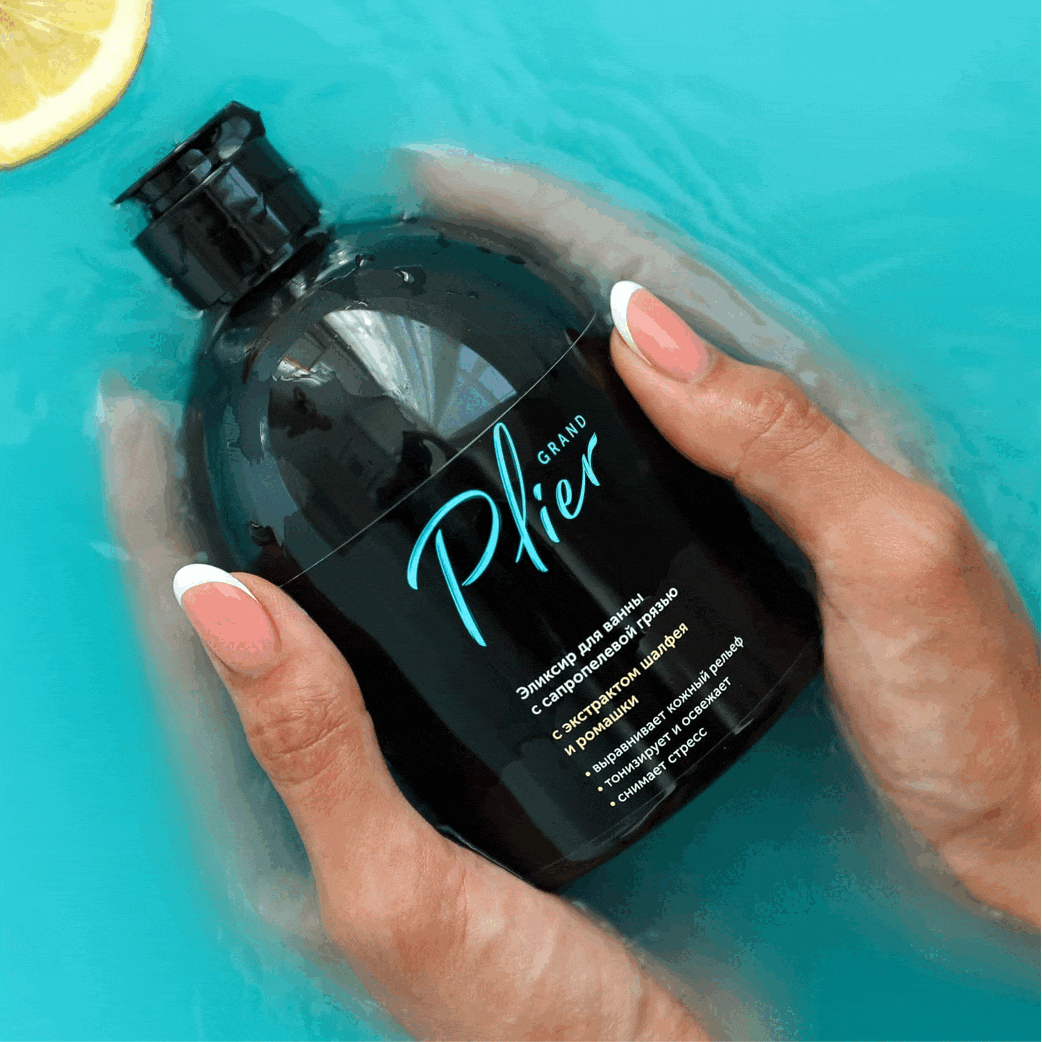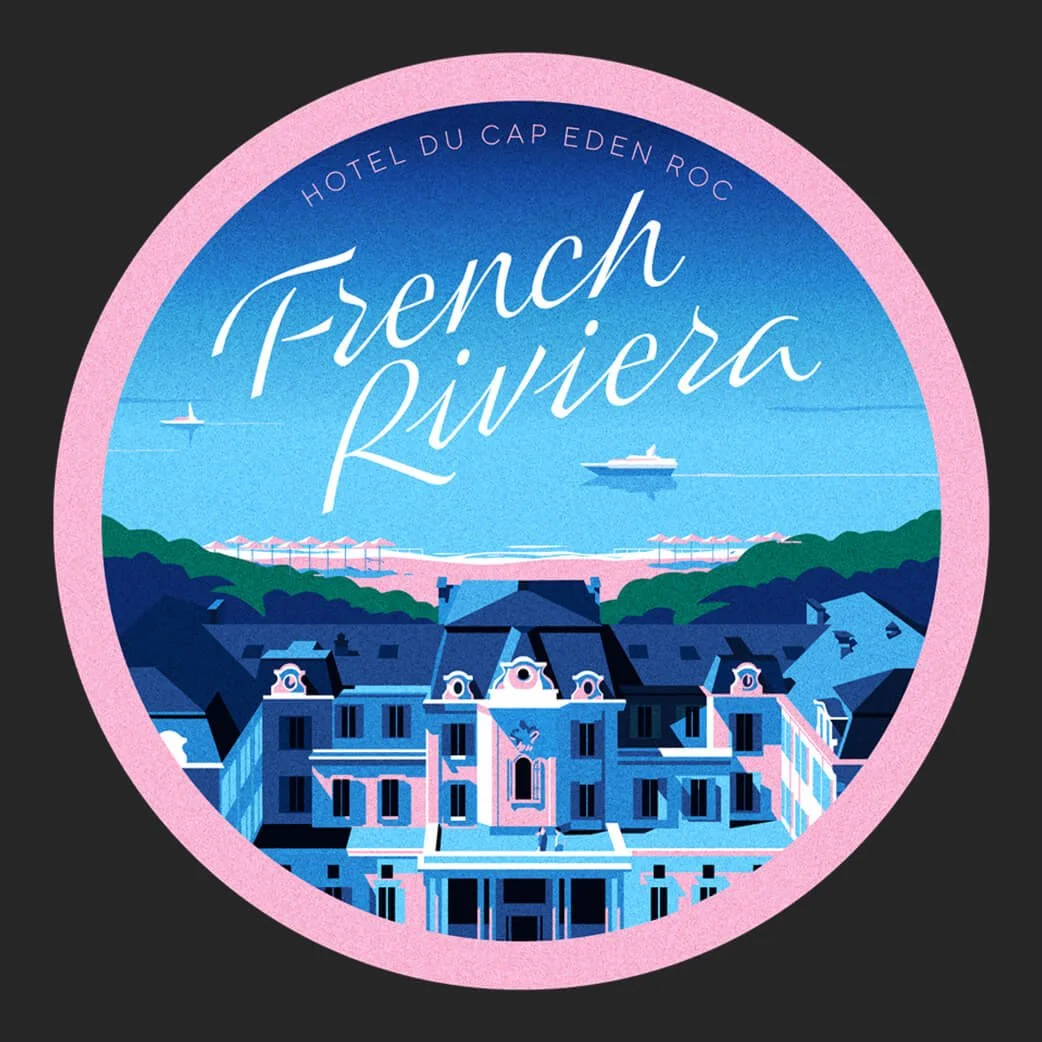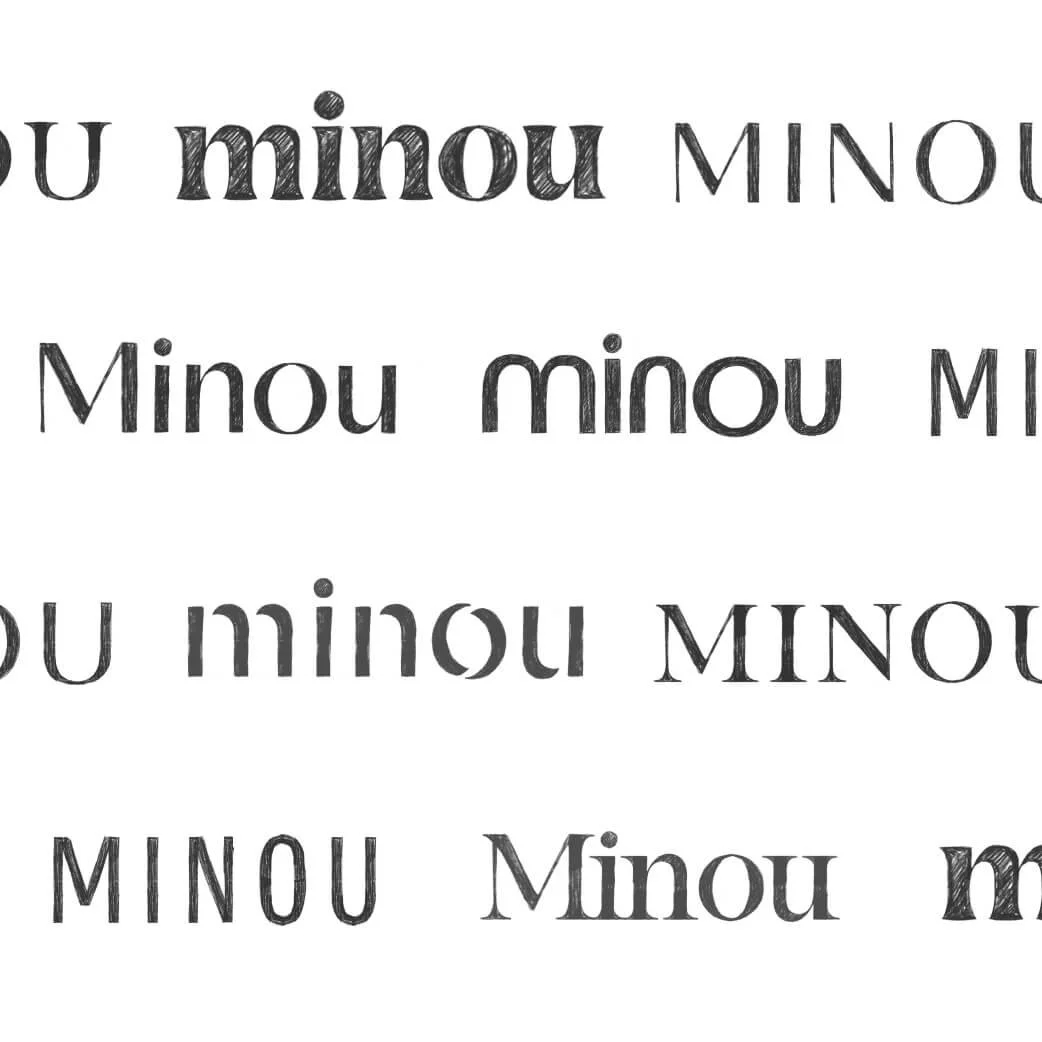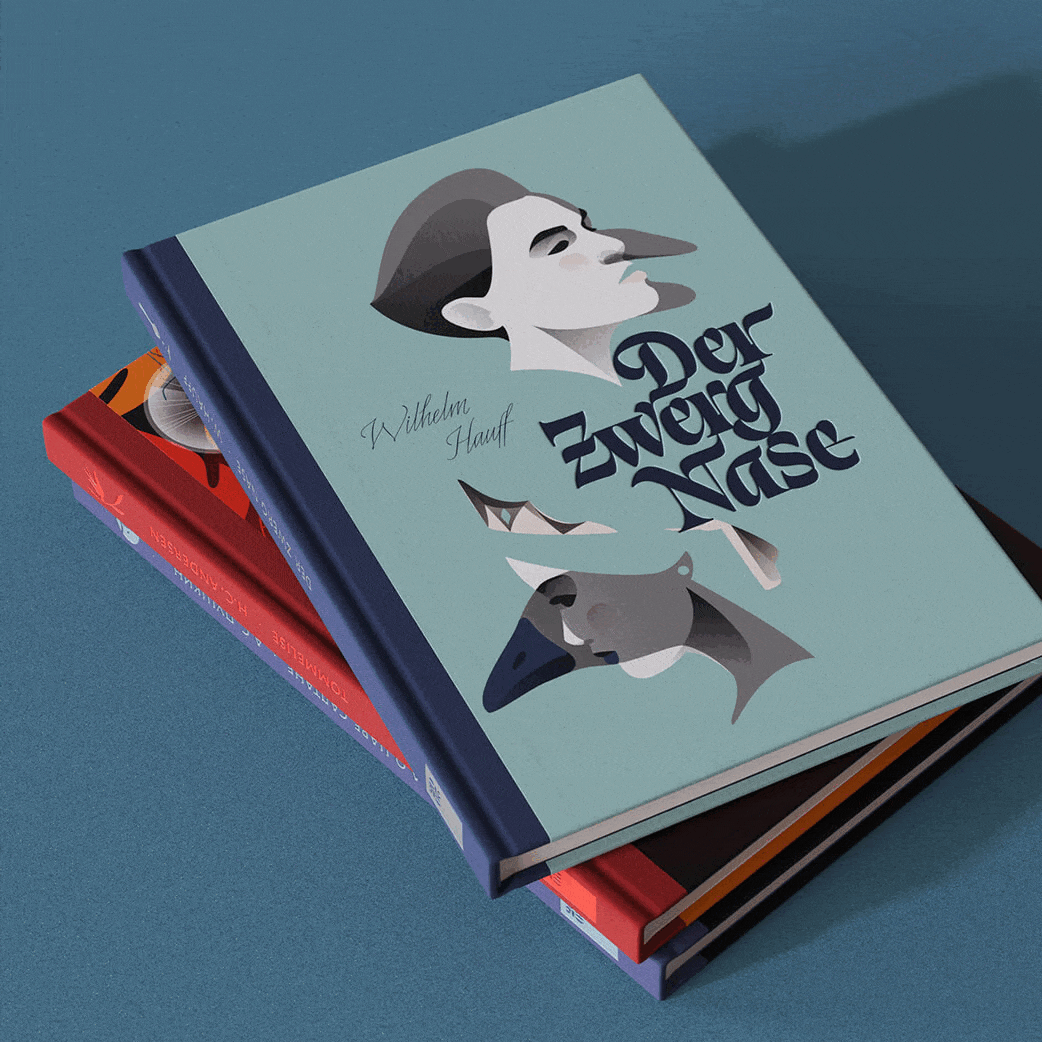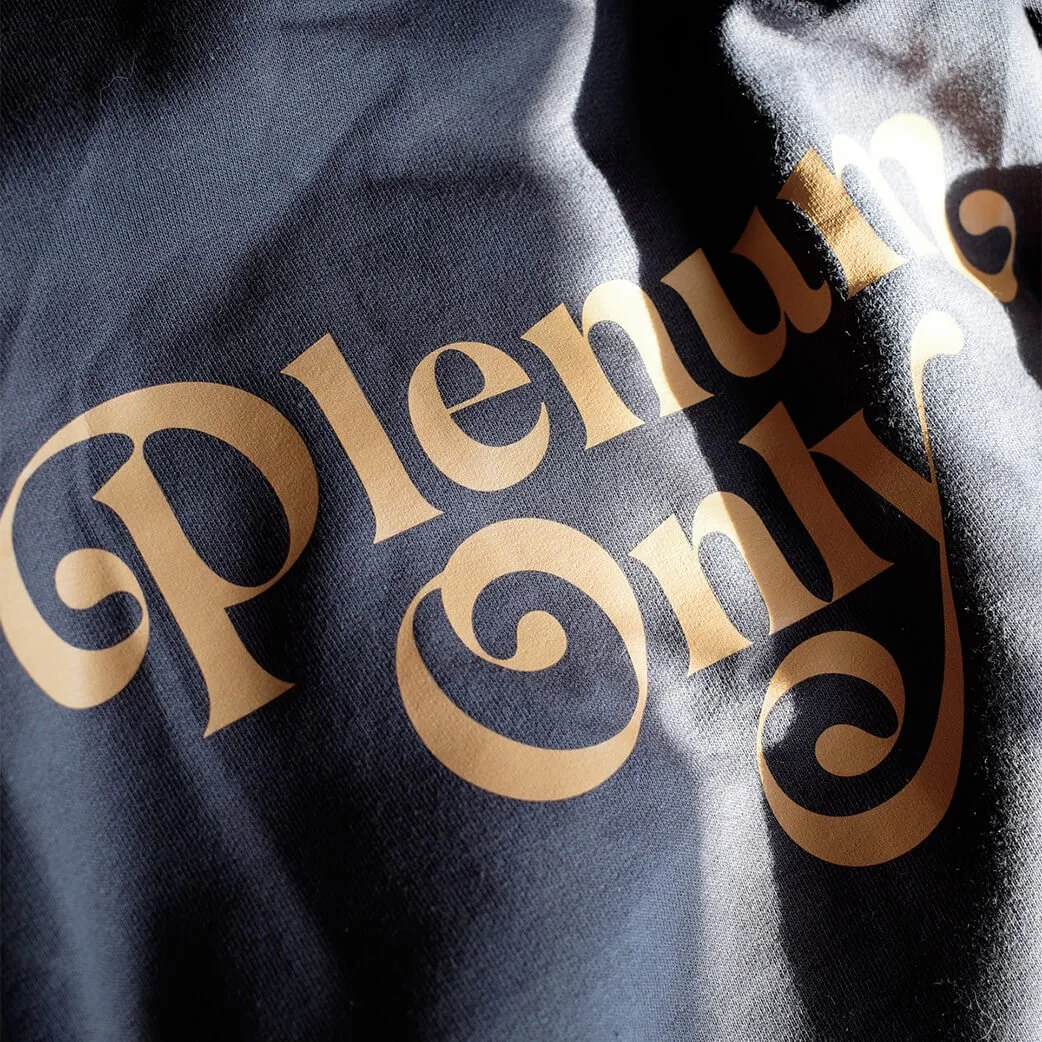
Hi! I’m Olga, aka Letterka.
I’m a lettering artist and type designer.
Before diving head-first into lettering and type design, I worked as a brand designer and art director, which gave me a strong eye for the bigger picture. That experience helps me find the right lettering style to fit seamlessly into a design, illustration, or brand.
I’m especially drawn to the dual nature of letters — they’re both graphic symbols and a way to communicate. You can read them for their meaning, but their shape, style, and flow can add emotion, contrast, or even surprise. You can stretch, bend, or melt them to create something truly unique.
To me, drawing letters is like a language — one I 'speak' through my work. It’s fascinating how letters have forms we’ve known since childhood, yet they can be reshaped in endless ways and still remain recognizable.
I love exploring all kinds of styles, from classic and elegant to wild and expressive. It all depends on the project and the story it needs to tell.
I’ve had a pleasure to work with wonderful clients including Marvel Studios, 1895.io, Russian Pointe, Bownce, WeatherWell, Gakko, Gren and type design foundries Interval Type, Contrast Foundry.
2026, ADC Bronze Cube, USA
2026, TDC Type-High Award Bronze, USA
2026, Tokyo TDC, Excellent work, Japan
2026, Communication Arts Award of Excellence, USA
2024, Morisawa Type Design Competition, Finalist
2020, ADC Silver Cube, USA
2020, Communication Arts Award of Excellence, USA
2019, ADC Merit Award, USA
2019, Communication Arts Award of Excellence, USA
2026, Forum, Journal of Letter Exchange #52, UK
2026, The World’s Best Typography, Typography 46,
TDC & Slanted Publishers, Germany
2026, Tokyo TDC Annual Book Vol.37, Japan
2026, Communication Arts Typography Annual, USA
2025, Yearbook of Lettering #2, Slanted Publishers, Germany
2024, 2025 Fight for Kindness, annual book
2021, Forum, Journal of Letter Exchange #42, UK
2020, Communication Arts Typography Annual, USA
2019, Typomania Festival Catalogue, Moscow
2019, 2020, 2024,
Typism Book Issues 5, 6 & 10, Australia
2019, Communication Arts Typography Annual, USA
2017, The 6th International Exhibition of Calligraphy Catalogue, Russia
2025 Speaker at Design + Type Festival, Moscow Polytechnic University
2025 Speaker at Typofriends, Saint-Petersburg
2024, Guest speaker at the Type Design Workshop
2020, Lecture on German Calligraphy of XX century, Online-Scriptorium.
2020, Curator of the German Calligraphy Section, Typomania Festival.
2019, Solo Exhibition ‘Ink and Quiet’ (calligraphic embroideries), Typomania Festival.